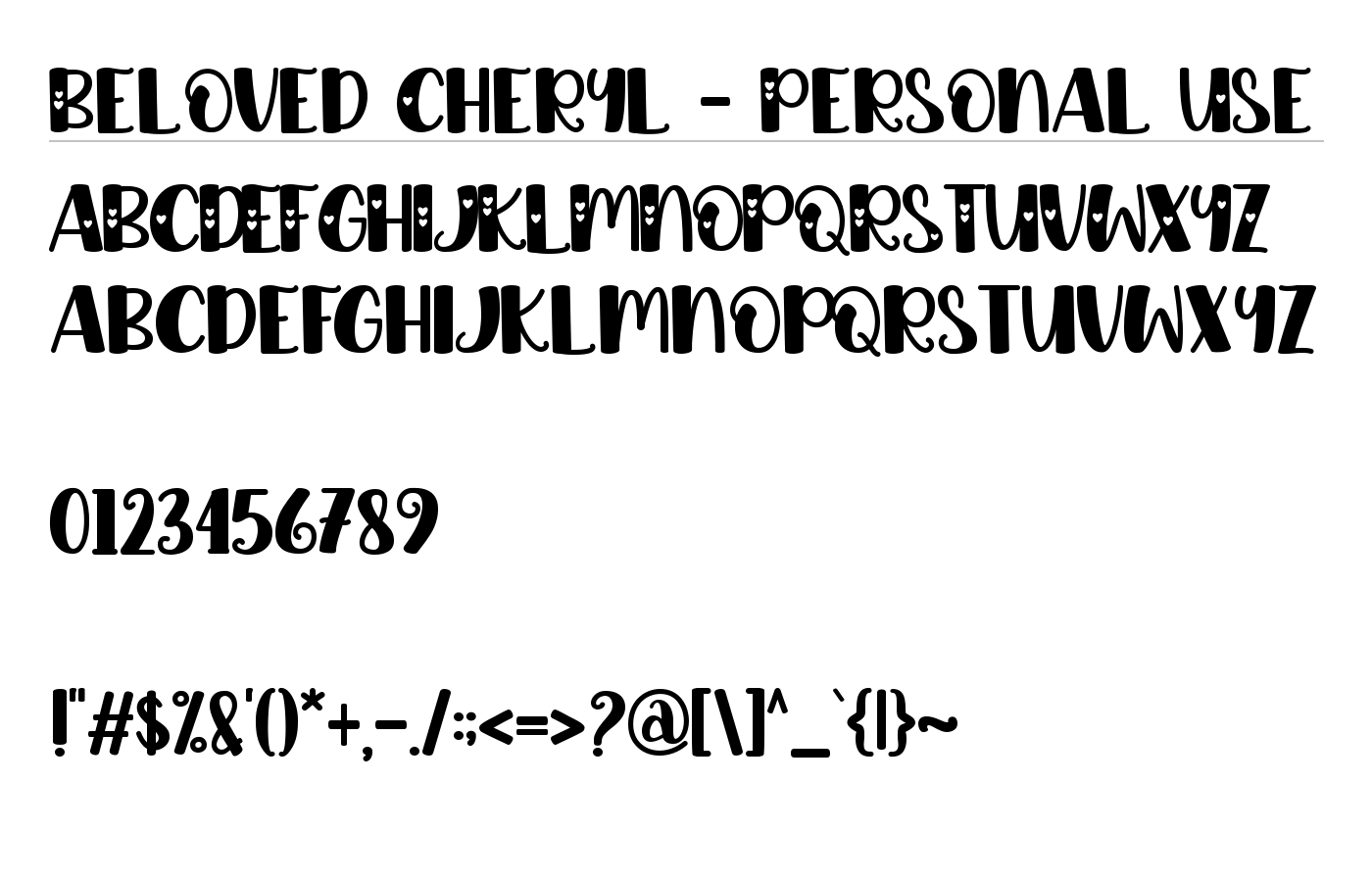
Beloved Cheryl is a playful and bold handwritten sans serif font with charming heart-shaped cutouts that add a whimsical touch. Its thick strokes, rounded edges, and lively letterforms make it ideal for fun, casual designs like greeting cards, kids’ projects, and informal branding. This font works best in headlines or decorative text where its unique personality can shine and capture attention.
Beloved Cheryl - Personal Use Font
About Beloved Cheryl - Personal Use Font
| Font family | Beloved Cheryl - Personal Use Font |